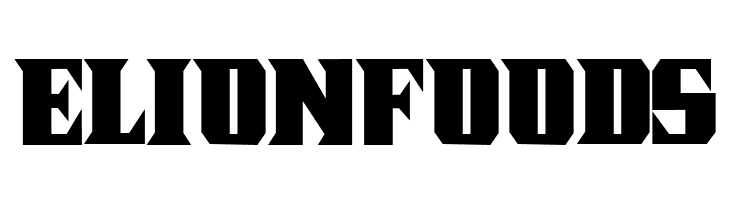
Oh Mighty Isis Italic Font
- Font: Oh Mighty Isis Italic
( Fonts by Dennis Ludlow - Sharkshock Productions )
A bold, adventurous font with sharp, angular edges, perfect for dramatic themes.